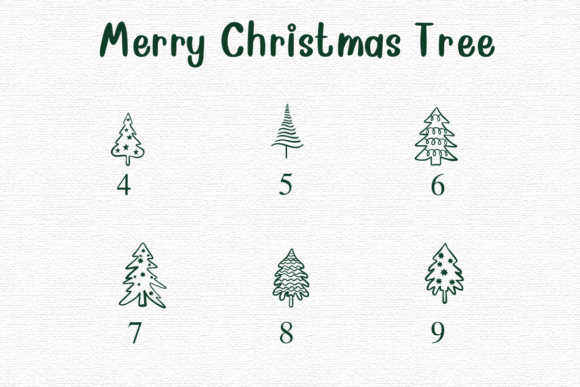
Merry Christmas Tree Font
Merry Christmas Tree is a fun dingbat font featuring a variety of Christmas tree designs. Perfect for adding a festive touch to holiday cards, decorations, and crafts, each character in the font is a unique tree, making it easy to create joyful, seasonal projects.